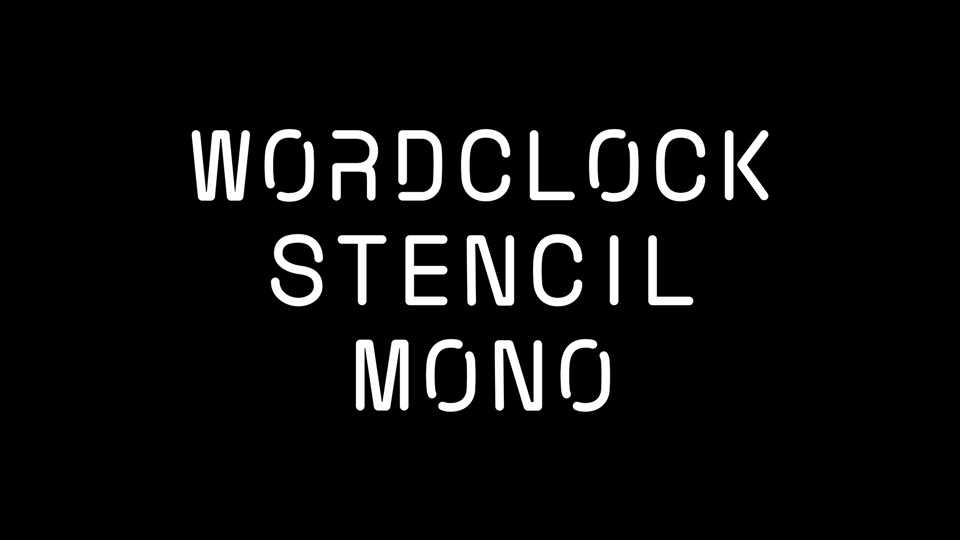
Download Wordclock Stencil Mono font, a display font designed specifically for wordclock projects. Wordclock Stencil Mono draws inspirations from Space Mono and some techniques used by Qlocktwo on some pieces with stencil design.
Designer: Matthieu Rudelle